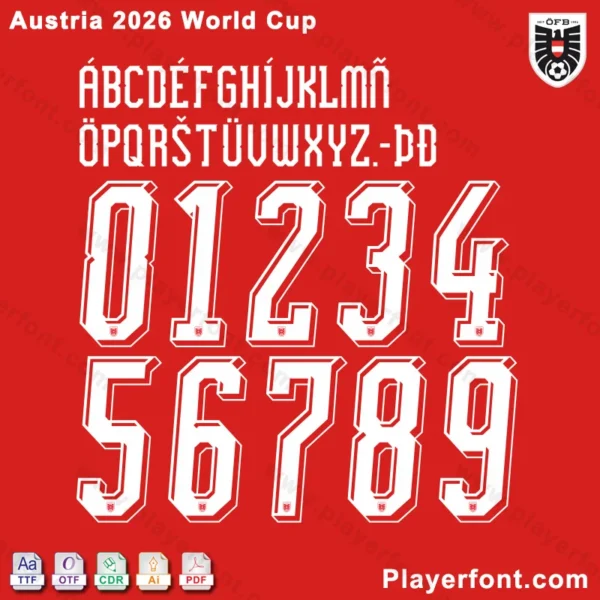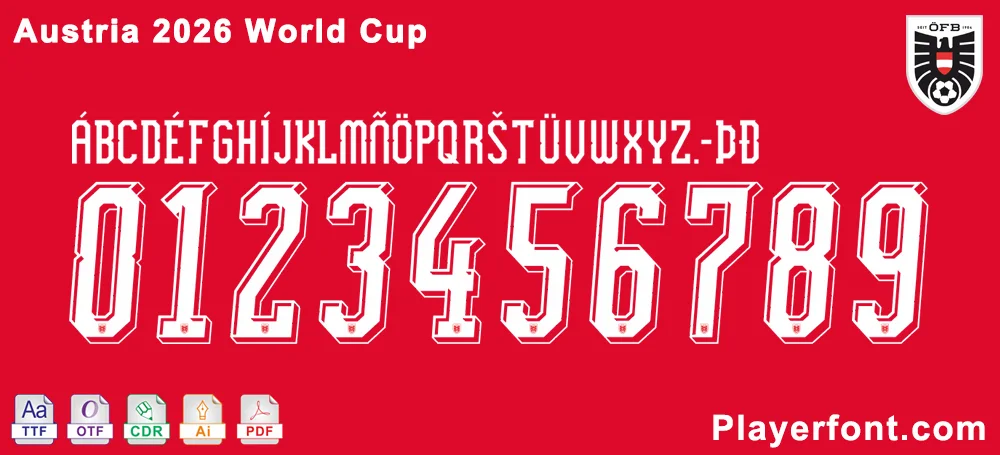
Austria 2026 World Cup Font
Precision and Peak Performance: Austria 2026 World Cup Font
Austria 2026 World Cup Font Preview: Letters, Numbers & Typography (Official 2026 World Cup Kit Font Style)
Official Austria 2026 World Cup font: letters, numbers & kit styling.
Embrace the spirit of the “Das Team” with the Austria 2026 World Cup Font. This typeface is meticulously crafted to complement the Austrian National Team’s 2026 kits, blending sharp, modern edges with a clean aesthetic inspired by Austrian precision and the Alpine landscape.
Product Highlights:
• Official-Style Typography: Replicates the unique character spacing and thickness used on the 2026 Austria home and away jerseys.
• ÖFB Identity: Each number is optimized to include the Austrian Football Association (ÖFB) crest at the base for 100% authenticity.
• Multilingual Support: Includes a full range of accented characters (like Ä, Ö, Ü) to accurately represent all Austrian player names.
Austria 2026 World Cup Font Display: Full Number & Letter Set (Official Kit Typography for 2026 World Cup)Austria 2026 World Cup Font